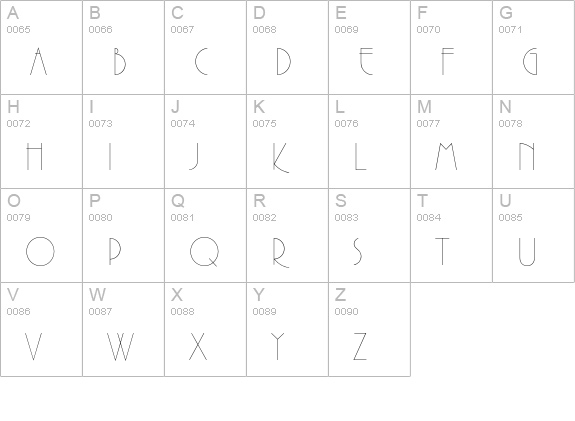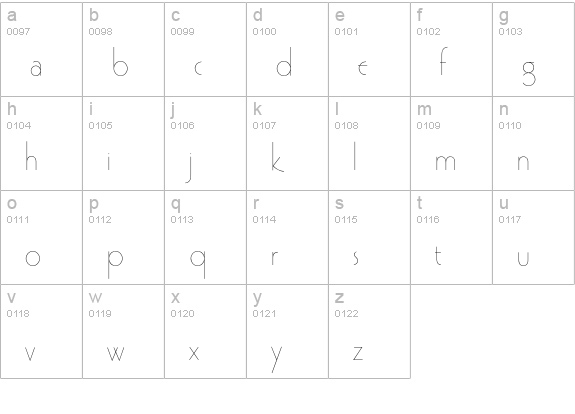
PremierEF-Alternate Font Details
PremierEF-Alternate is a sophisticated and elegant font that exudes a sense of modernity and style. Its alternate characters offer a unique and creative touch to any design project, making it stand out from the rest. This versatile font is perfect for a wide range of applications, from branding to editorial design. What's even better is that PremierEF-Alternate is available for free download at FontsMarket.com. Yes, you read that right - absolutely free! So why wait? Get your hands on this stunning font and elevate your design projects to a whole new level with PremierEF-Alternate.